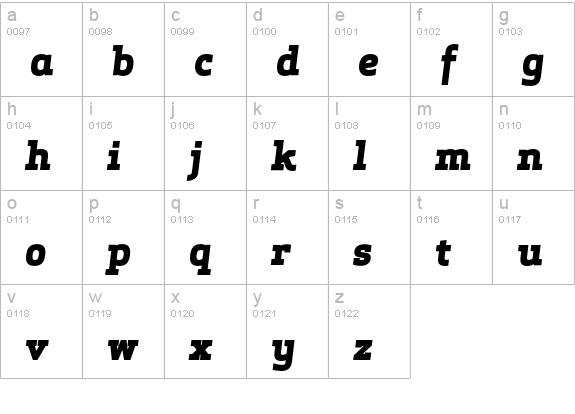
Introducing ApexSerif-ExtraBoldItalic font, a bold and stylish typeface that exudes confidence and sophistication. With its strong presence and elegant curves, this font is perfect for making a statement in any design project. The ExtraBoldItalic variant of ApexSerif commands attention with its striking appearance, ideal for headlines, logos, and branding materials. And the best part? ApexSerif-ExtraBoldItalic is available for free download at FontsMarket.com. Whether you're a designer, student, or hobbyist, you can easily access this premium font to elevate your creations. Don't miss out on adding this eye-catching typeface to your collection and unleash your creativity with ApexSerif-ExtraBoldItalic.